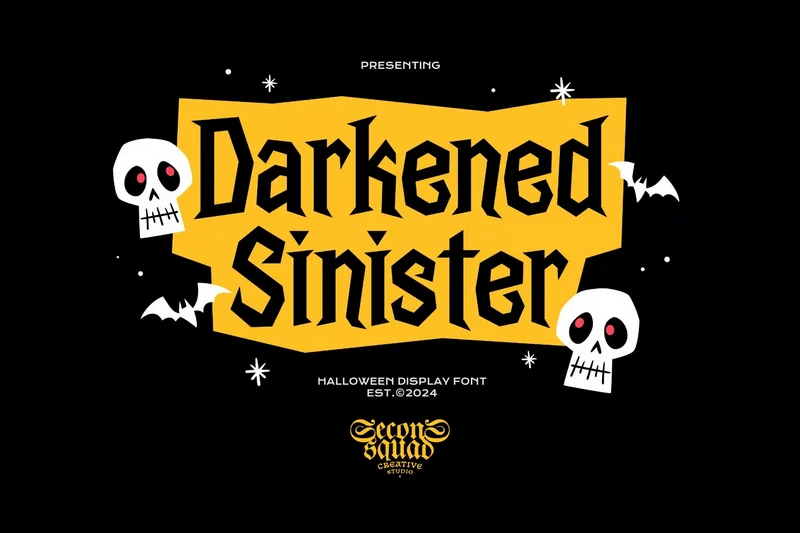
Halloween – Darkened Sinister
Darkened Sinister is a menacing Halloween font forged in the shadows, blending creepy elegance with pure gothic horror. Its sharp, unsettling strokes are perfect for scary movie posters, thriller titles, and witchy branding that demand a touch of evil. Each letter drips with spooky tension, whispering tales of mystery, death, and lurking monsters.
From dark gothic invitations to horror-themed packaging, Darkened Sinister casts a wicked spell on any design. Whether you’re creating a witch’s curse poster, a deathly Halloween flyer, or a sinister thriller headline, this font turns fear into art. Dare to design with Darkened Sinister—if you can handle the darkness.